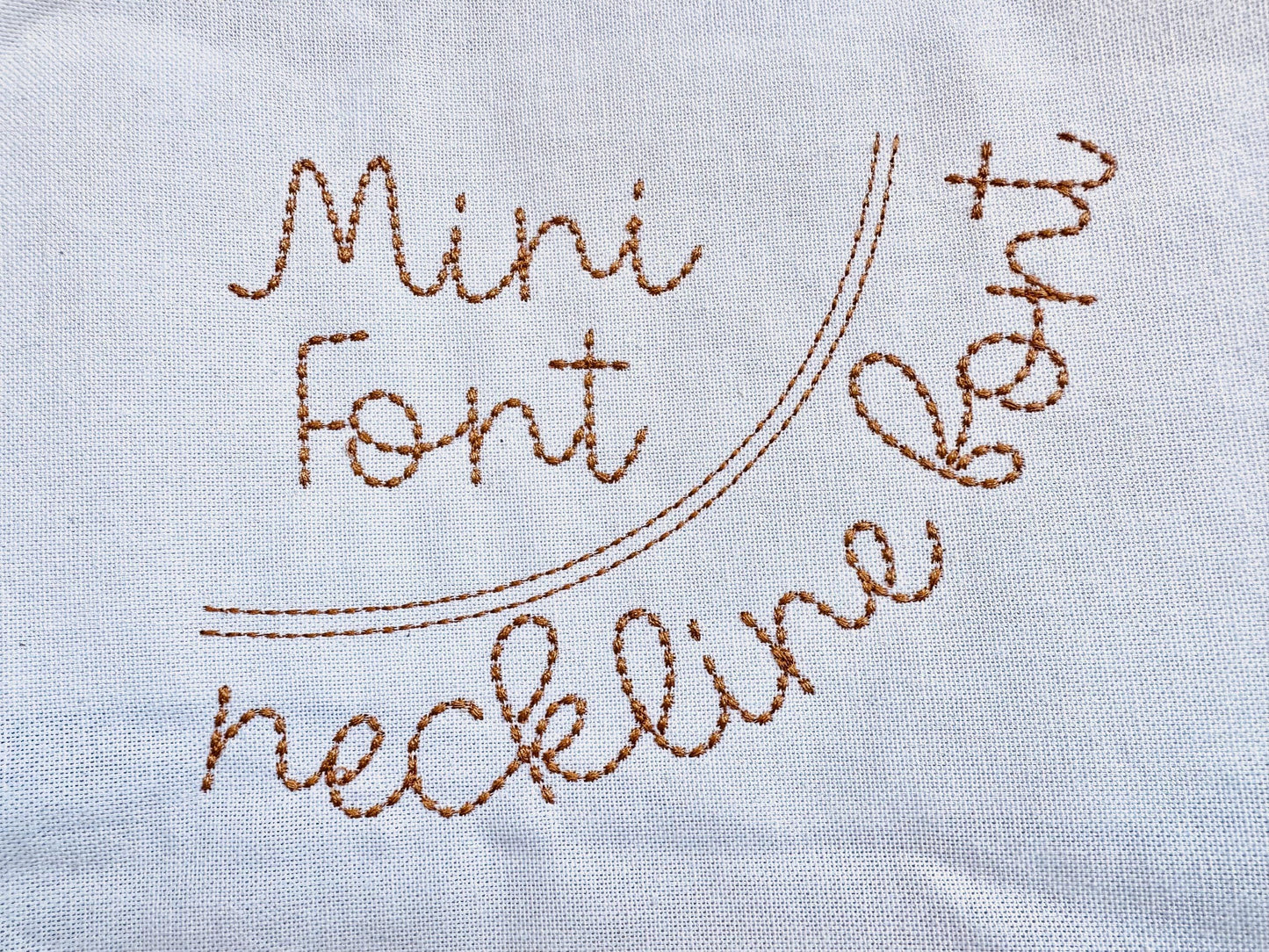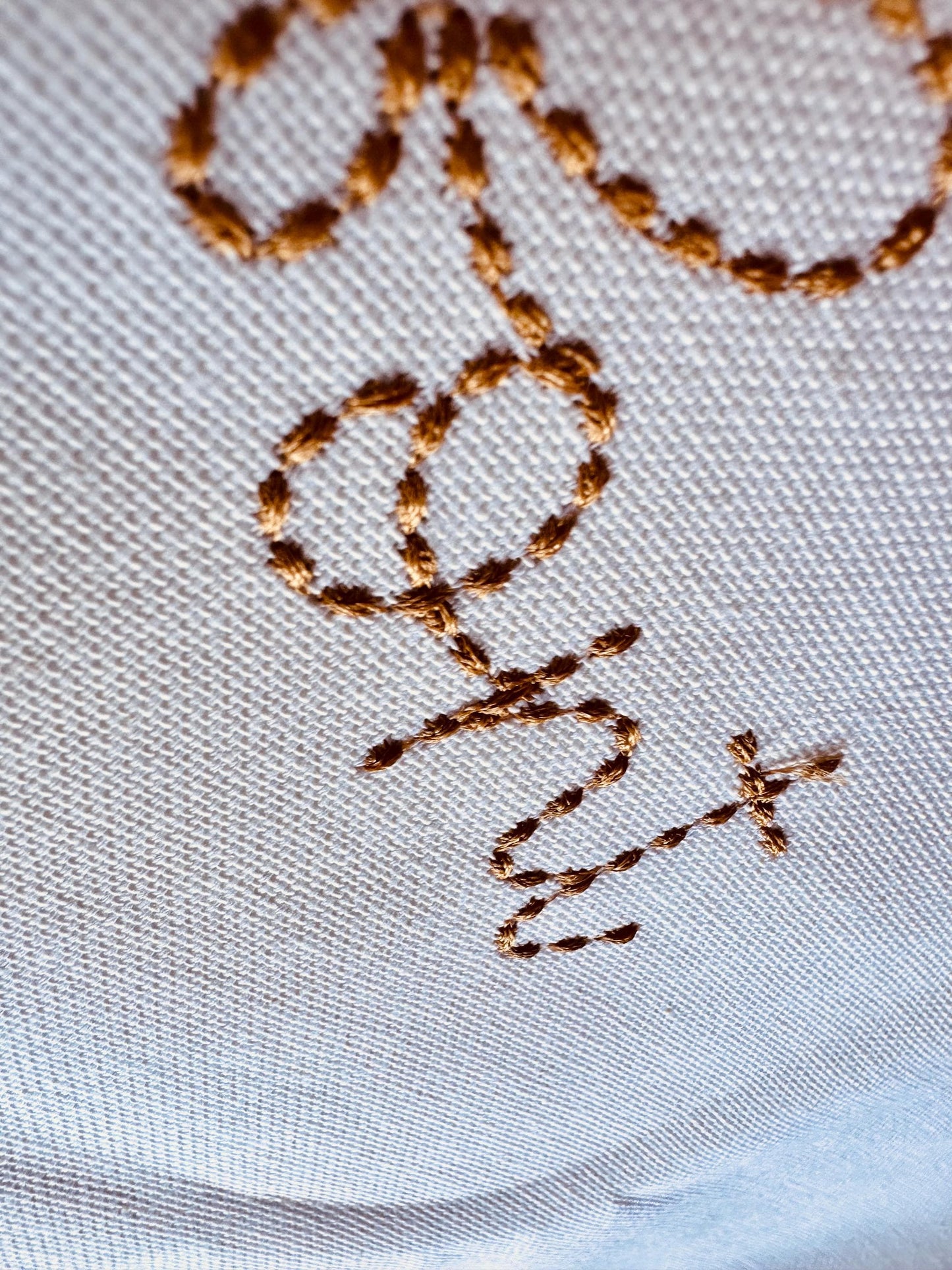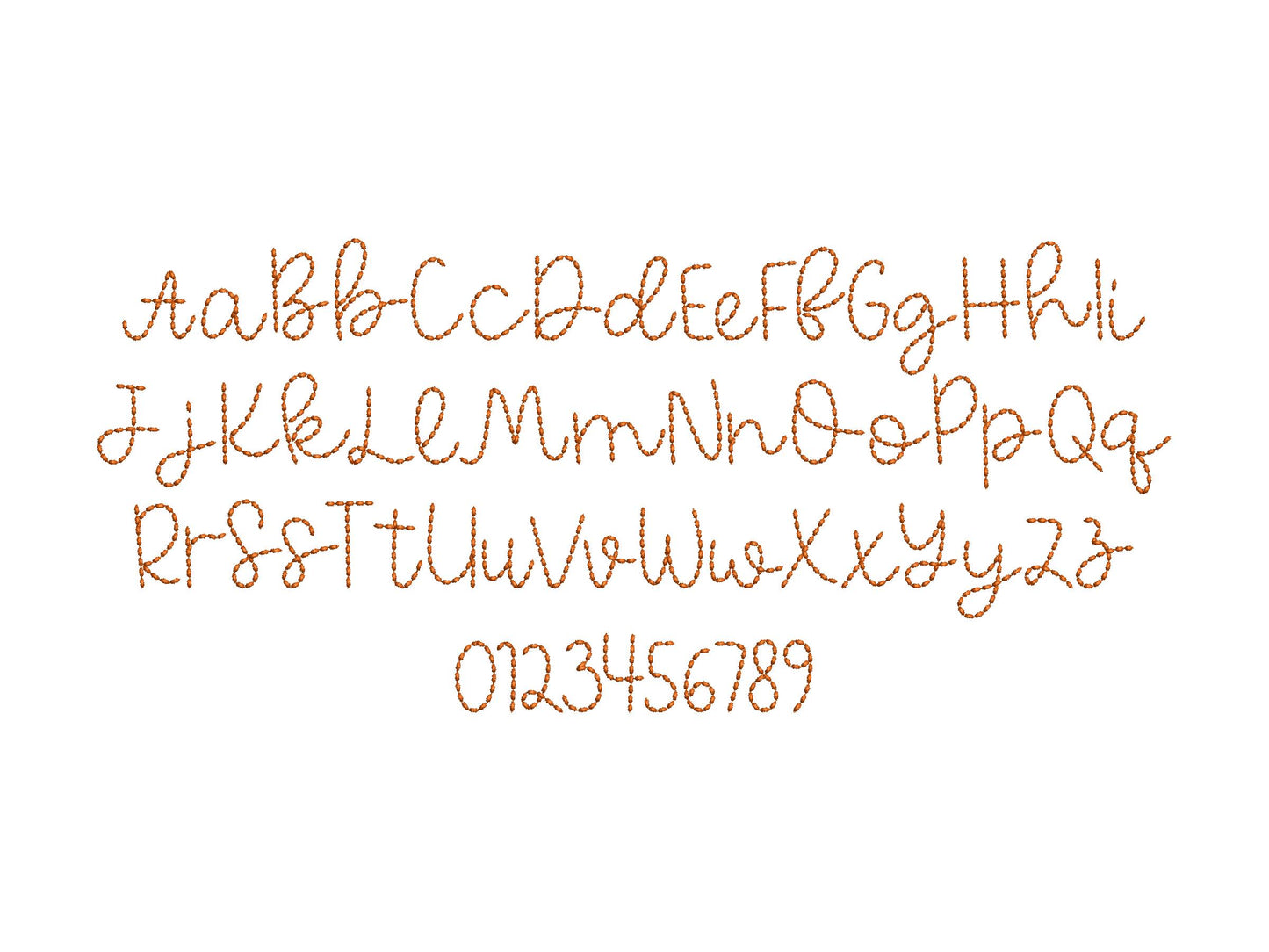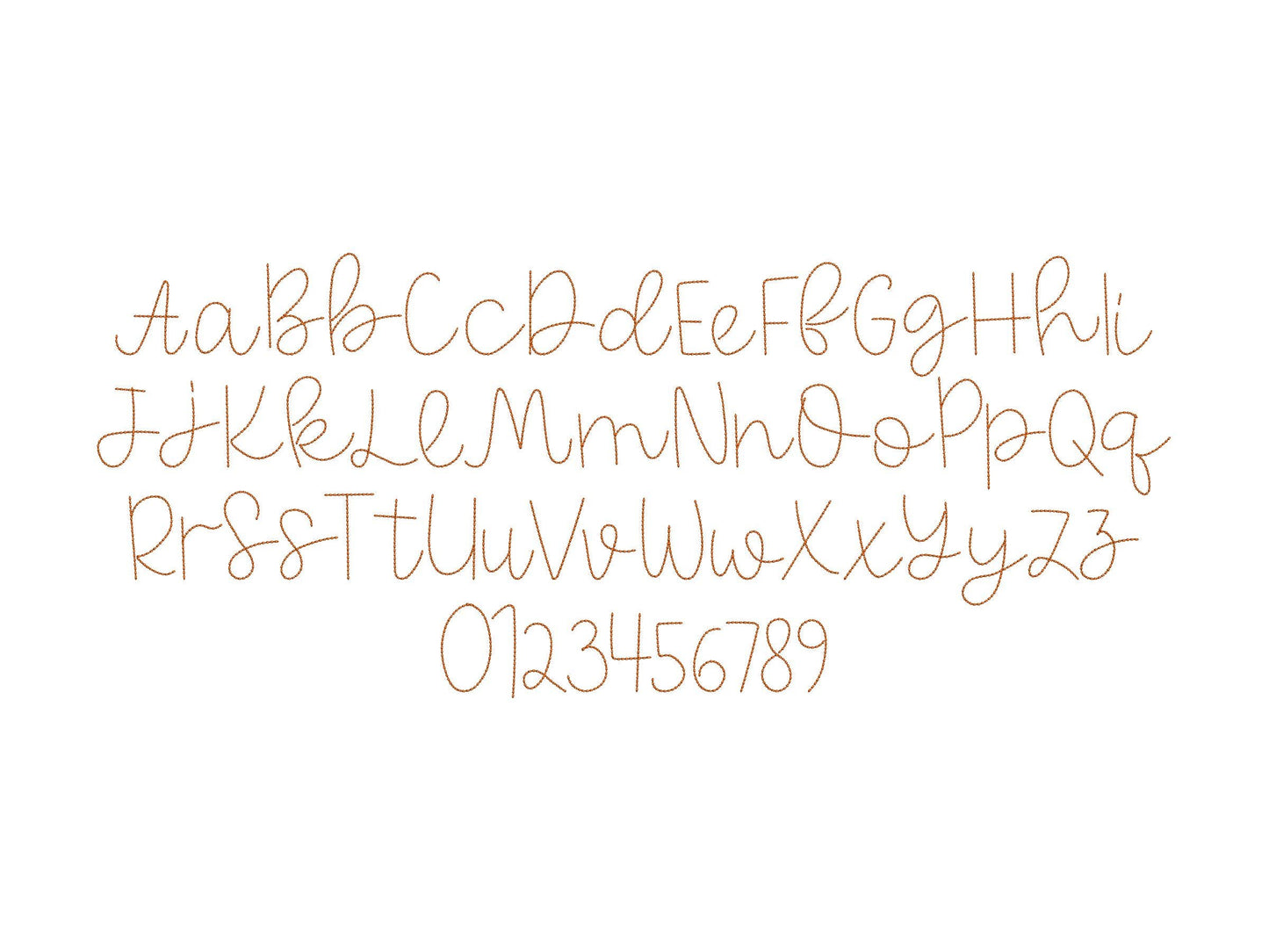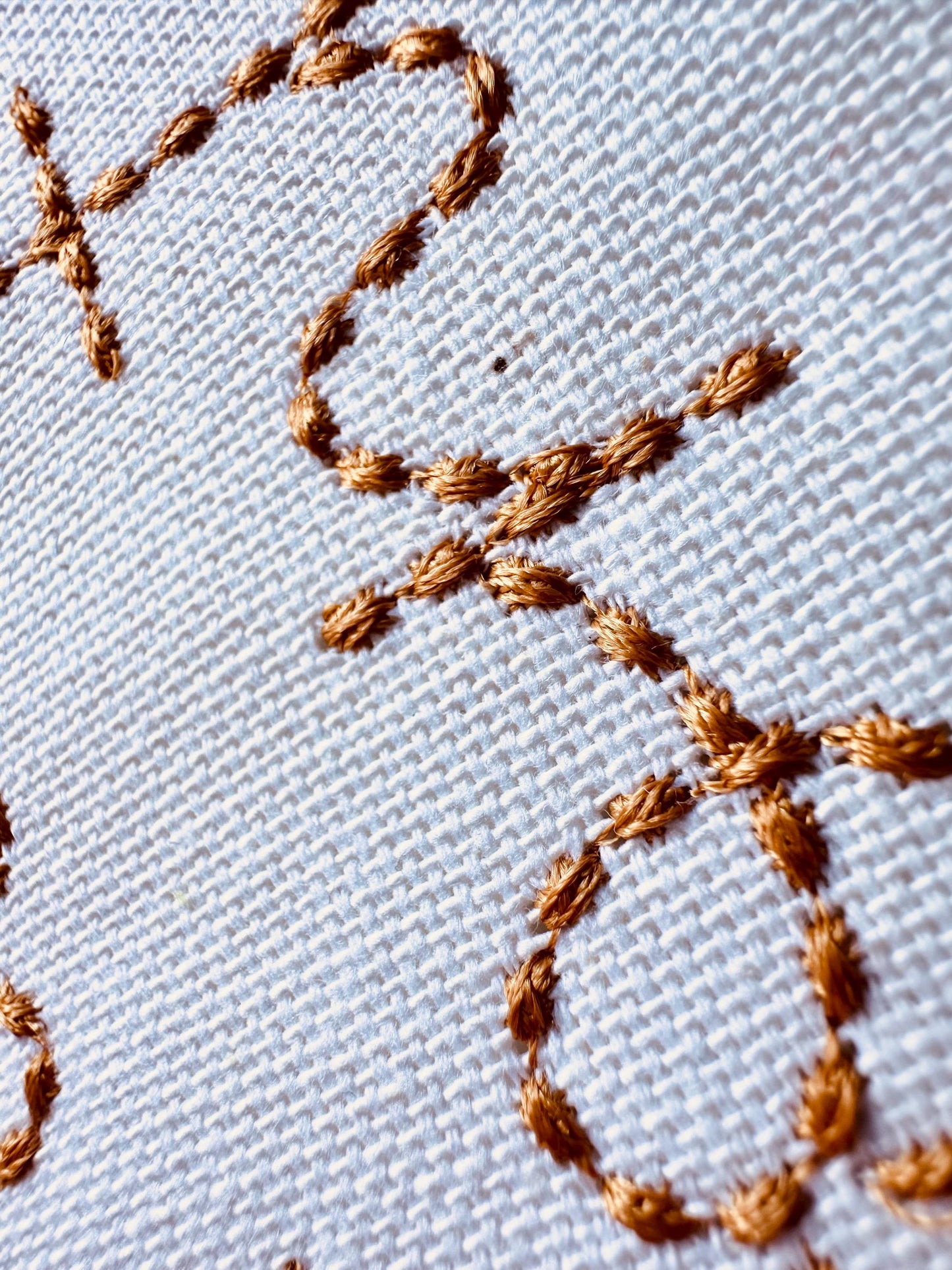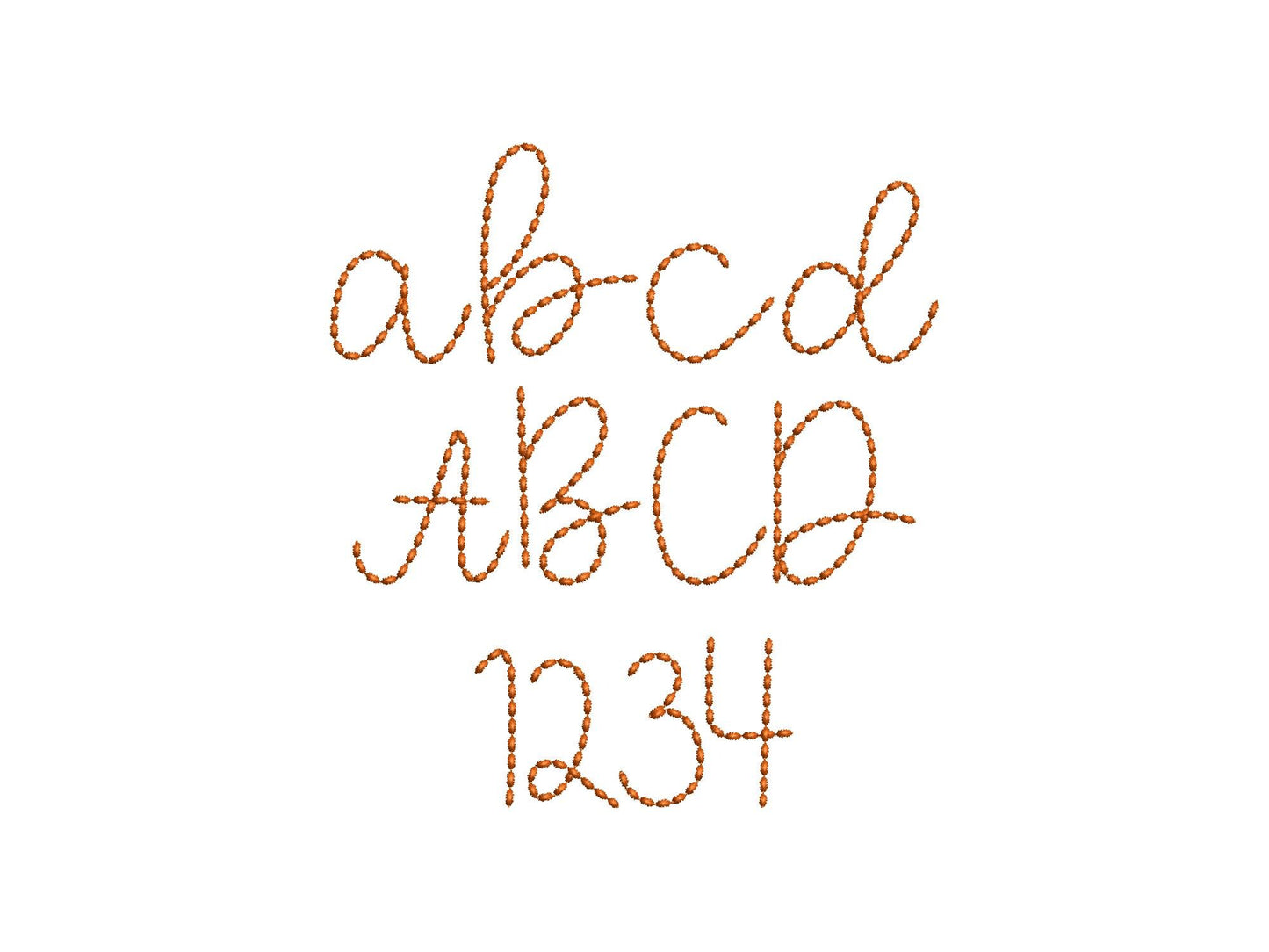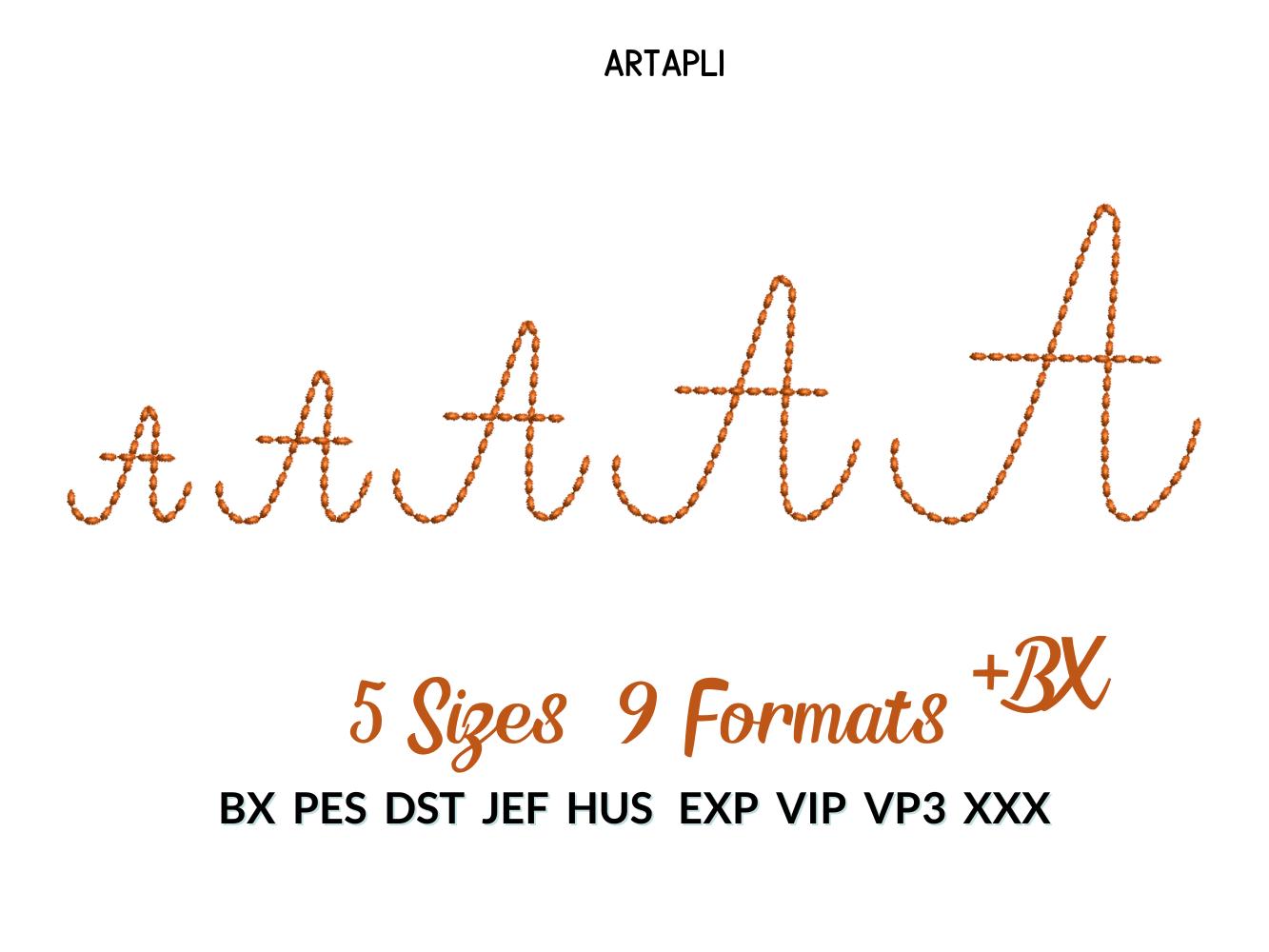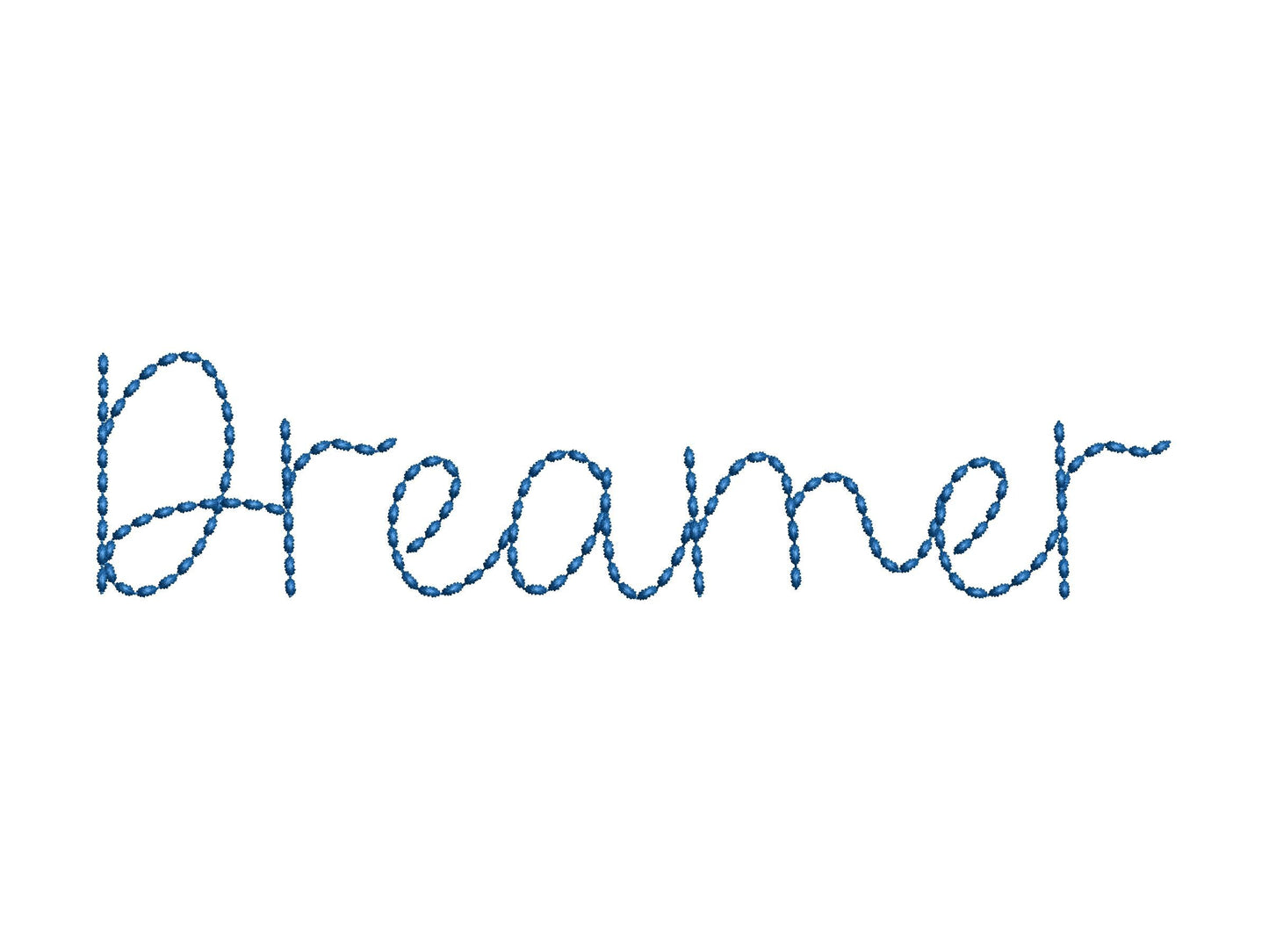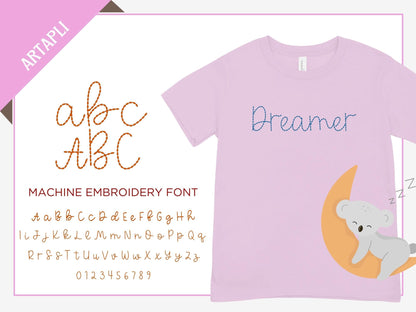
stitched out perfectly. love this font
This design was so cute
this item stitched out perfect!
Worked perfectly on the neckline of an outfit I made for my little nieces birthday! I will be using this font again and again. Thank you!
great stitch out with good quality
Love the way it stitched out!
This font stitched out beautifully! I would highly recommend this shop to anyone looking for perfectly digitized designs!
Cute font! Stitched out great!
So cute will be using a lot!
The cutest font, perfect for what I needed!
This is a game changer! The font is great and the neckline guide has made it so much easier to do!
I used for embroidering names on a sleeve, so I can’t speak for the curved template, but it stitches out great!
Beautiful stitched out really well love the font
Loved how this stitched out!
beautiful font for embroidery projects
I really love this. Turned out cute.
Great font it met my expectations
Very cute, would be more helpful with smaller size options
Nice font, worked very well
Très jolie police de caractère à la fois simple et élégante qui se marie avec de nombreux de mes projets
Love the design and stitched out perfect!
Love this! Stitches out very cute!
Este patrón de letras es muy útil al escribir nombres y frases en sabanillas y pañales.
Stitches beautifully! I will use often!
using this font for curved necklines for different seasons
Love this design, easy to do
This font is really neat...can't wait to use it!
Font stitches beautifully and will be used often in my shop.
I love this font so much I have it in regular size and now the mini!
I love this hand stitch look and it’s very popular right now. It’s very quick and easy.